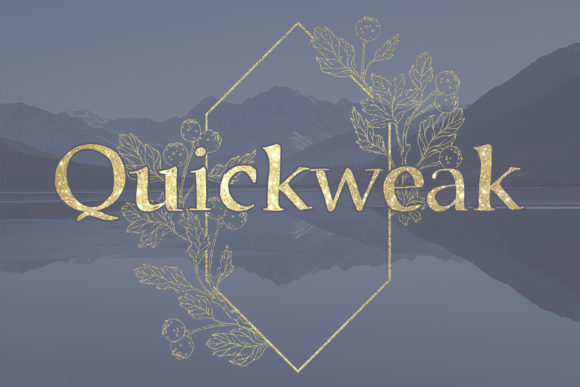
**Introducing Quickweak: The Font That Will Elevate Your Design Game**
Prepare to be mesmerized by Quickweak, the captivating display font that will transform your designs into masterpieces. Its enchanting blend of elegance and a hint of playfulness makes it the perfect choice for a wide range of creative endeavors, from logos to branding, social media graphics to crafty DIY projects.
Whether you're a seasoned designer or just starting your creative journey, Quickweak's versatility will unleash your imagination. Its clean lines and unique character add a touch of sophistication to any project, while its subtle quirkiness infuses a dash of personality.
Picture your brand's logo adorned with Quickweak's captivating curves, leaving an unforgettable impression on your audience. Imagine your social media posts bursting with vibrant headlines that draw attention like a magnet. Or envision your handmade creations adorned with Quickweak's playful charm, becoming cherished keepsakes that tell a story.
With Quickweak, the possibilities are endless. Its versatility extends to a diverse range of styles, from minimalist chic to bold and expressive. It effortlessly adapts to your creative vision, allowing you to express yourself with unparalleled freedom.
So why settle for ordinary when you can embrace the extraordinary? Download Quickweak today and embark on a design adventure that will leave your audience spellbound. Let its elegant allure elevate your brand, its playful spirit ignite your creativity, and its versatility empower you to create designs that will turn heads.
**Reasons Why You'll Fall Head Over Heels for Quickweak:**
* **Unleash Your Creativity:** Its versatility empowers you to explore endless design possibilities, from sophisticated logos to playful social media graphics.
* **Make a Lasting Impression:** Its captivating curves and unique character ensure that your designs will leave an unforgettable mark on your audience.
* **Add a Touch of Personality:** Its subtle quirkiness infuses a dash of playfulness into your projects, making them stand out from the crowd.
* **Elevate Your Brand:** Quickweak's elegant allure adds a touch of sophistication to your brand, making it instantly recognizable and memorable.
* **Connect with Your Audience:** Its versatility extends to social media, allowing you to create eye-catching headlines that resonate with your followers.
* **Bring Your Creations to Life:** Quickweak's playful charm adds a personal touch to your DIY projects, making them cherished keepsakes that tell a unique story.